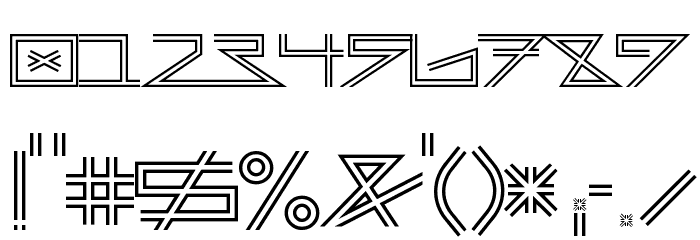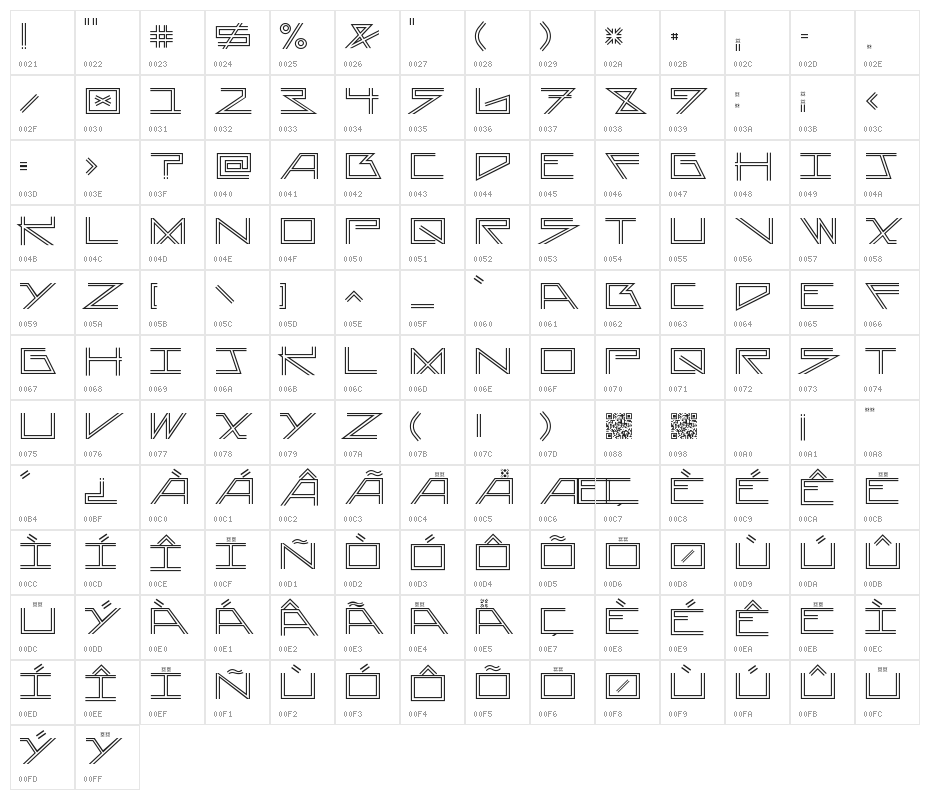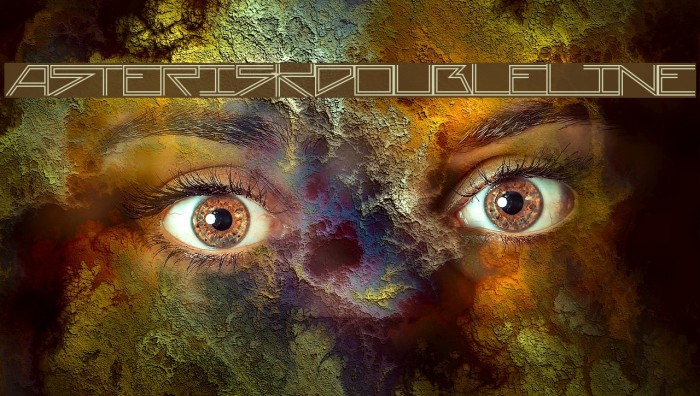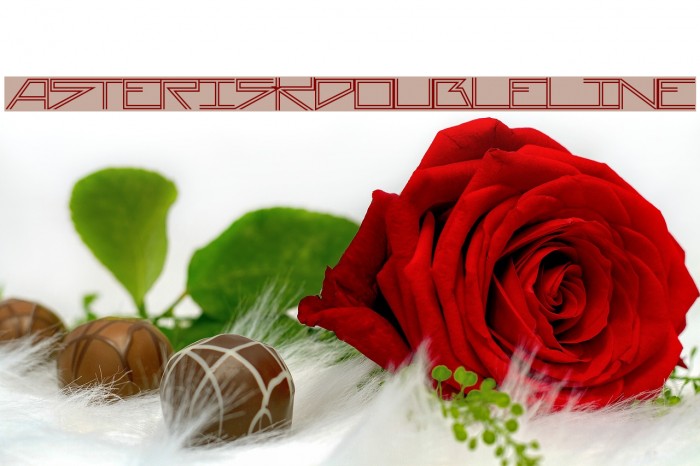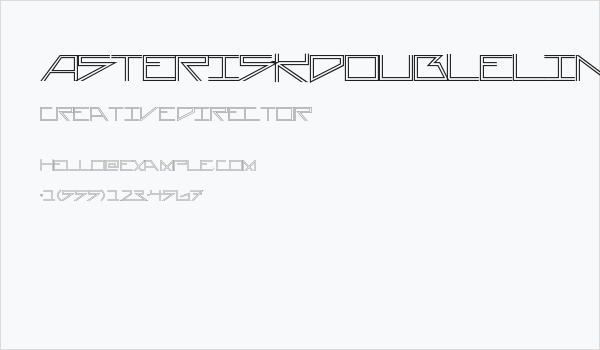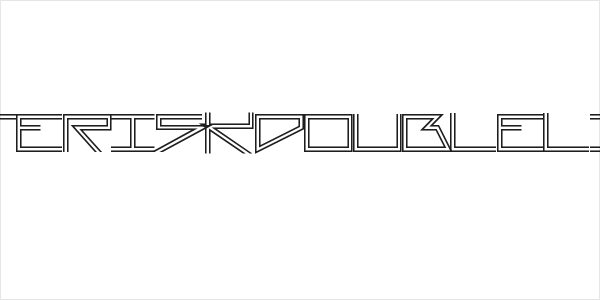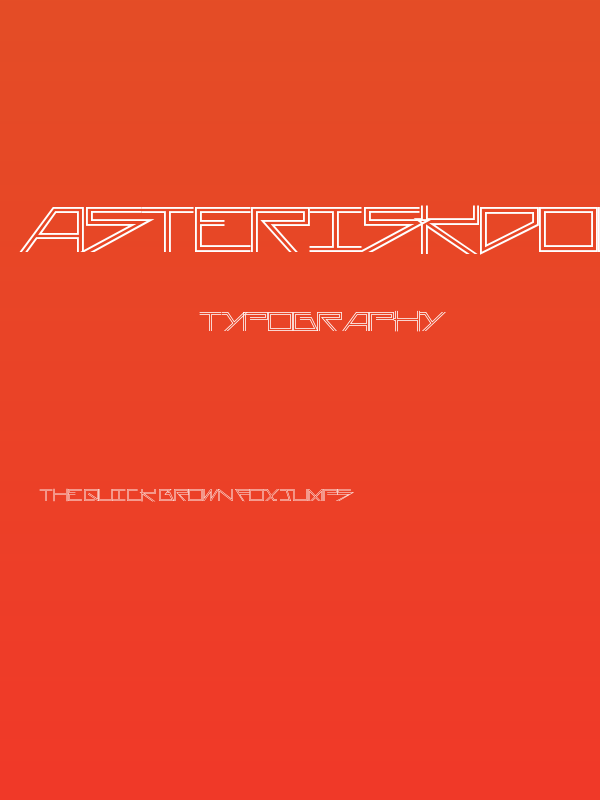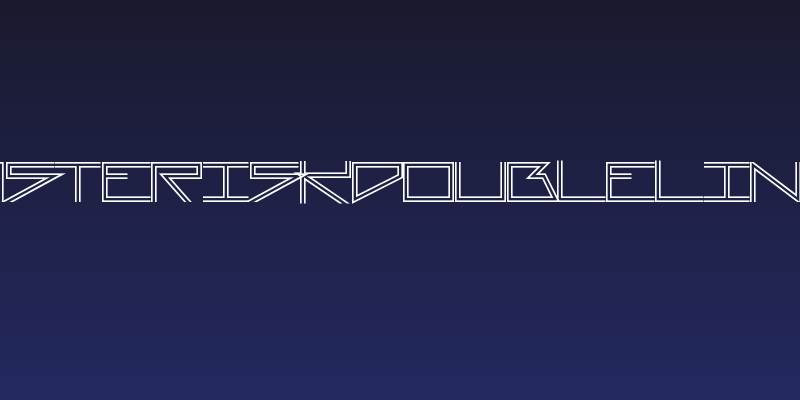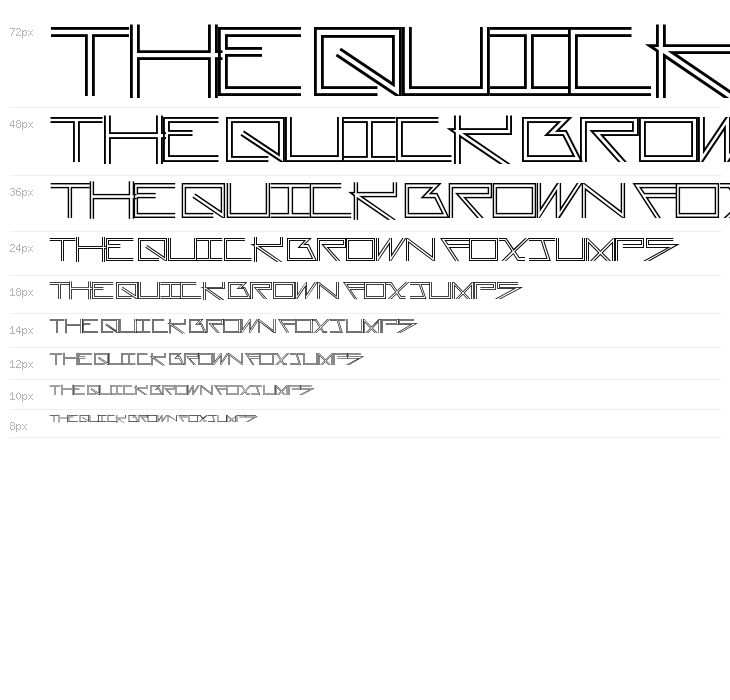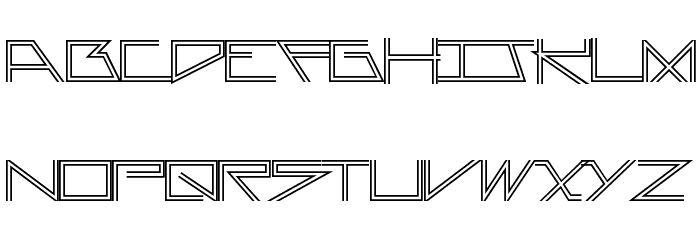
AsteriskDoubleLine Font
AsteriskDoubleLine Description
This font features a unique geometric design with double lines forming each character, creating a futuristic and edgy appearance. The angular shapes and sharp edges give it a distinct, modern look. The uppercase and lowercase letters maintain a consistent style, with the double lines adding depth and dimension. Numbers and special characters follow the same design principles, ensuring uniformity across all glyphs. This font's intricate design makes it stand out, ideal for projects that require a bold and innovative aesthetic.
| Proposed Projects | Ideal for sci-fi themed designs, tech branding, video game titles, and modern posters. |